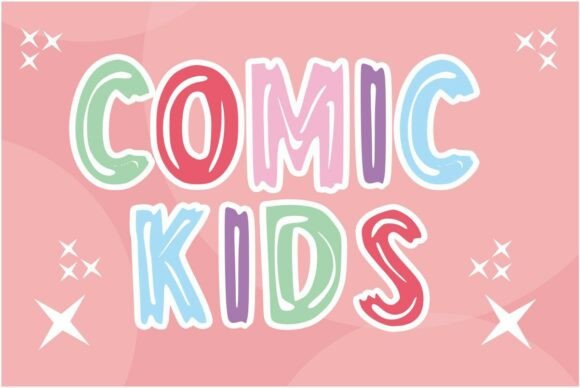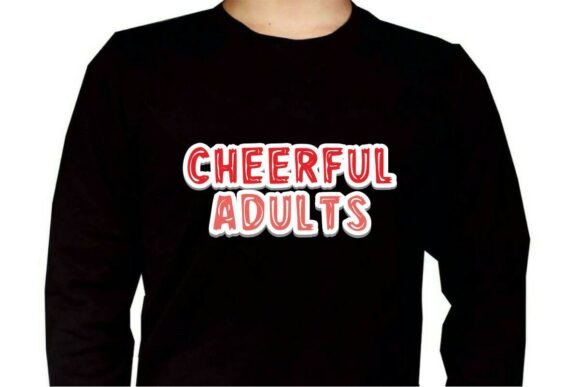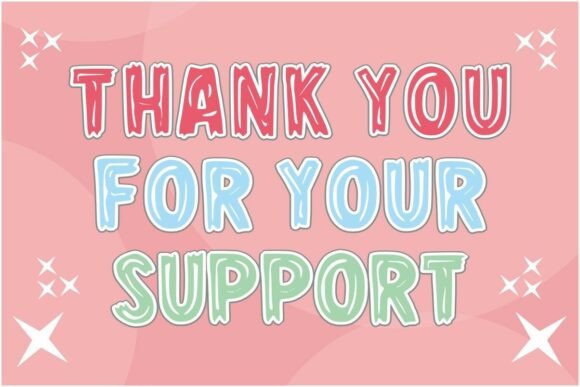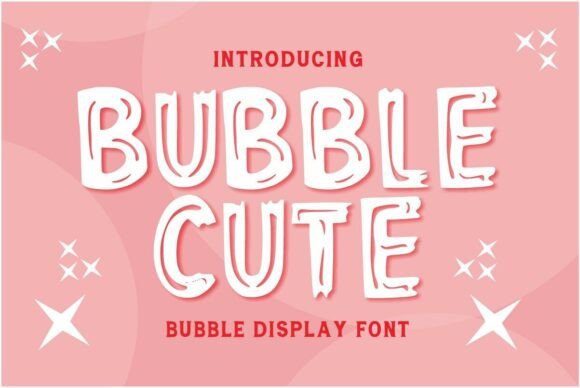
Bubble Cute Font: Add a Playful Touch to Your Designs
In the world of typography, fonts play a crucial role in conveying the tone and personality of a design. If you’re looking for a typeface that exudes fun, friendliness, and playfulness, then the Bubble Cute Font is an excellent choice. This delightful font is designed to bring a cheerful and affectionate message to your designs, making it perfect for a wide range of applications.
What is Bubble Cute Font?
Bubble Cute Font is a fun and cheerful typeface characterized by its curvy lines, creating a friendly and approachable feel. The font’s design is inspired by the whimsical and playful world of bubbles, which is reflected in its lighthearted and airy appearance. With its expressive and colorful lettering, this font is sure to add joy and warmth to your designs.
Key Features of Bubble Cute Font
• Playful and Cheerful Design: The Bubble Cute Font boasts a playful and cheerful design, making it perfect for designs that require a friendly and approachable tone.
• Curvy Lines: The font’s curvy lines create a soft and gentle feel, adding a touch of warmth and personality to your designs.
• Expressive and Colorful Lettering: The font’s expressive and colorful lettering makes it perfect for designs that require a pop of color and personality.
• Versatile: The Bubble Cute Font is versatile and can be used in a wide range of applications, from social media and invitations to comics and web design.
Use Cases for Bubble Cute Font
The Bubble Cute Font is perfect for a variety of design projects, including:
• Social Media: Add a playful touch to your social media posts and stories with the Bubble Cute Font.
• Invitations: Create cheerful and inviting invitations for parties, events, and celebrations.
• Comics and Cartoons: Bring your comics and cartoons to life with the Bubble Cute Font’s playful and expressive lettering.
• Web Design: Add a touch of personality to your website with the Bubble Cute Font, perfect for headers, titles, and other design elements.
• Digital Designs: Use the Bubble Cute Font in a variety of digital designs, from graphics and illustrations to presentations and more.
Benefits of Using Bubble Cute Font
Using the Bubble Cute Font in your designs offers several benefits, including:
• Unique and Engaging Feel: The font’s playful and cheerful design creates a unique and engaging feel that sets your designs apart.
• Conveys a Cheerful Message: The Bubble Cute Font is designed to convey a cheerful and affectionate message, making it perfect for designs that require a friendly tone.
• Easy to Read: The font’s clear and curvy lines make it easy to read, even at small sizes.
Tips for Using Bubble Cute Font
To get the most out of the Bubble Cute Font, follow these tips:
• Use it Sparingly: Use the Bubble Cute Font sparingly to add a touch of personality to your designs.
• Pair it with Other Fonts: Pair the Bubble Cute Font with other fonts to create a unique and interesting contrast.
• Experiment with Colors: Experiment with different colors to bring out the playful and cheerful nature of the font.
The Bubble Cute Font is a fun and cheerful typeface that adds a playful touch to any design. With its curvy lines, expressive and colorful lettering, and versatile design, this font is perfect for a wide range of applications. Whether you’re a designer, crafter, or simply looking for a unique font to add to your collection, the Bubble Cute Font is an excellent choice.